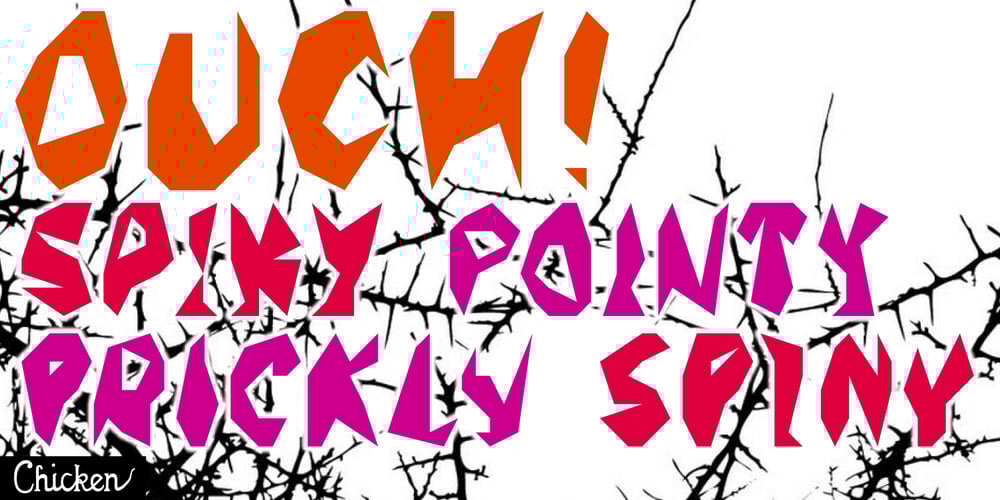
Barb Font Family was designed by Tim Barnes and published by chicken. Barb contains 3 styles and family package options. Heavy as hell, awkward, asymmetric, sort-of-gothic… Four alternates for every letter, carefully kerned together and nicely shuffled for you by OpenType apps… Blunt has the sharp corners ever so slightly rounded off for a softer look at large sizes. Wired chops everything up for an origami angle…